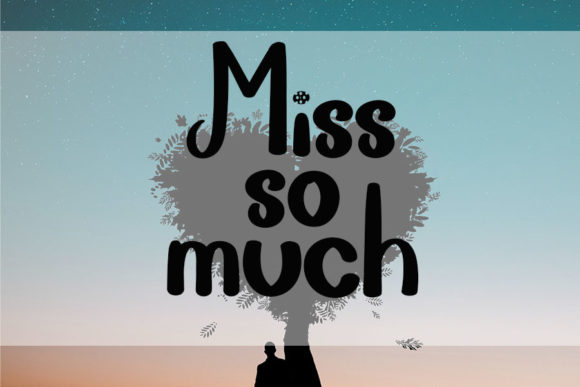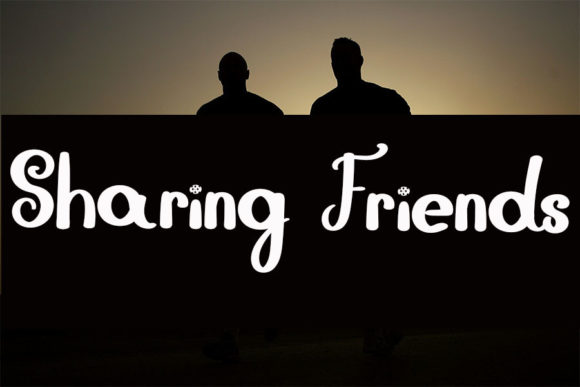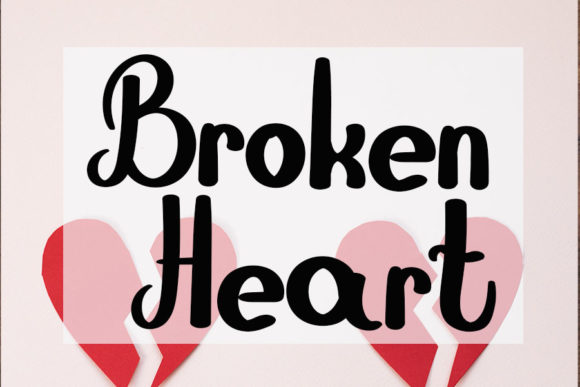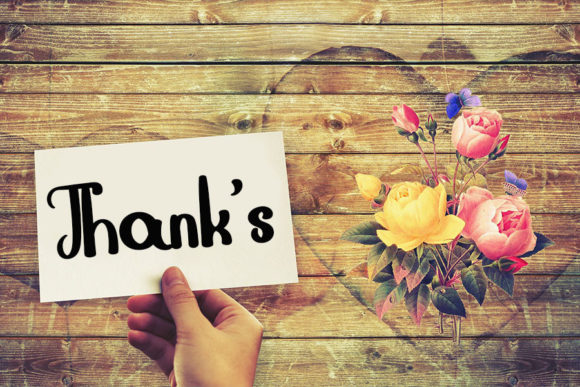
Introduction to Miss You Mom Font
Have you ever stumbled upon the perfect design element, and suddenly, an idea that was just simmering on the backburner starts to boil over? That’s exactly what happened when I first laid eyes on the Miss You Mom Font. Its beautiful, handwritten curves and unique feel immediately sparked an idea for a heartfelt project I’d been putting off for weeks.
As designers, we know how much a single high-quality design resource can elevate our creative projects. That’s why I’m excited to dive into the world of the Miss You Mom Font, a stunning free download that’s perfect for adding a personal touch to any design.
Whether you’re working on a project with a transparent background or simply need a font that exudes warmth and emotion, the Miss You Mom Font is an invaluable resource that’s sure to leave a lasting impact.
Key Features of Miss You Mom Font
- High-quality font design for personal use, ideal for creative projects and sentimental expressions.
- Transparent background, allowing for seamless integration with images and other design elements.
- Designed with a simple yet elegant aesthetic, making it suitable for a wide range of creative projects.
- Perfect for expressing love and appreciation for mothers, with a unique and heartfelt design.
Honest Review: Miss You Mom Font
I recently came across the Miss You Mom Font, and I was intrigued by its unique charm. As a designer, I always appreciate high-quality design resources that can elevate a creative project. This font is a perfect example of that.
- Handwritten feel: The Miss You Mom Font has a beautiful, handwritten feel that’s perfect for adding a personal touch to any design.
- Transparent background: The font includes a transparent background option, which makes it easy to use on any design without worrying about background issues.
Overall, the Miss You Mom Font is a great addition to any designer’s toolkit. It’s perfect for creating unique and heartfelt designs, such as greeting cards, posters, or even social media graphics.
- Limited character set: One of the main limitations of the Miss You Mom Font is its limited character set. It’s mainly suitable for short phrases or words.
- Not ideal for large text: Due to its handwritten nature, the font may not be the best choice for large blocks of text or headings.
Overall impression: While the Miss You Mom Font has some limitations, it’s a wonderful resource for designers who want to add a personal touch to their creative projects. Its unique charm and free download make it a great addition to any design library.
Common Use Cases for Miss You Mom Font
The Miss You Mom Font is perfect for creating personalized greeting cards, social media posts, and other creative projects. Use the font to express your love and appreciation for mothers, or to create a memorable design for a special occasion.